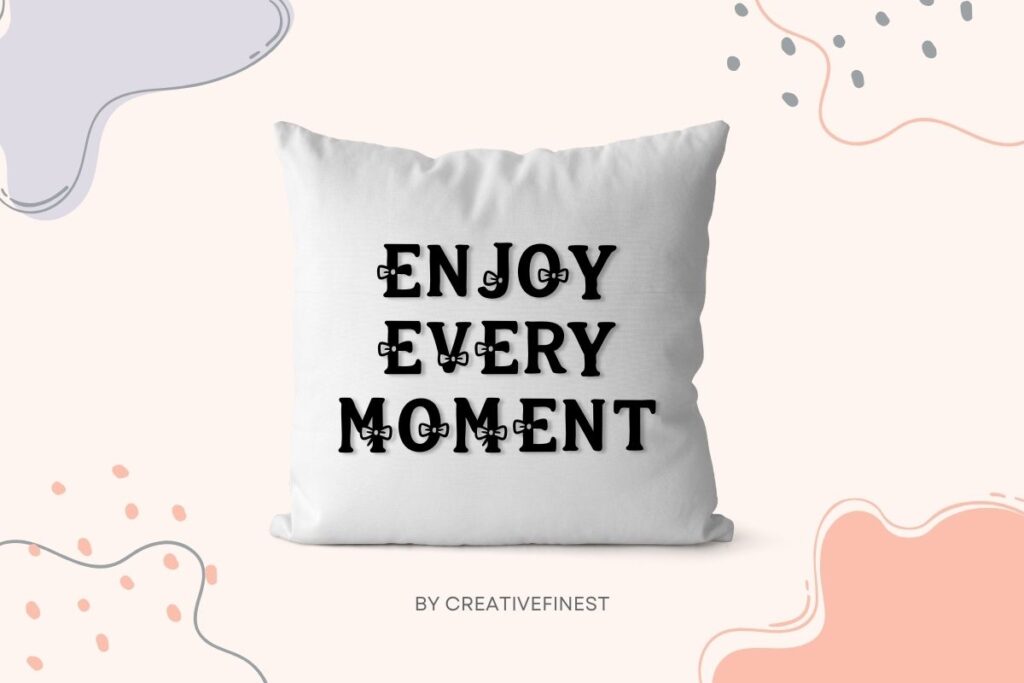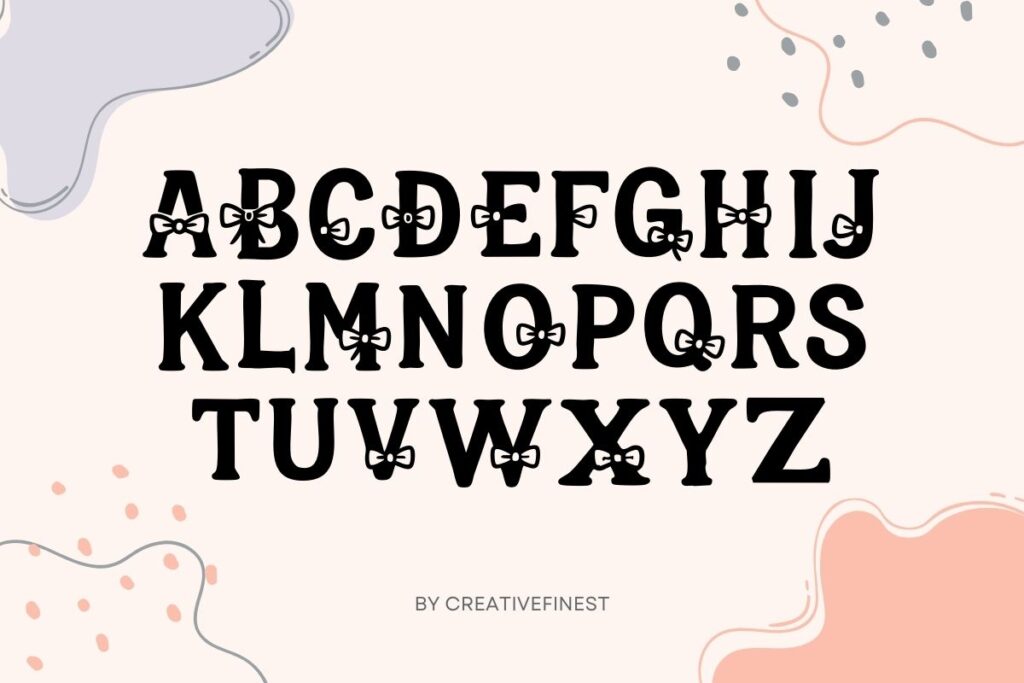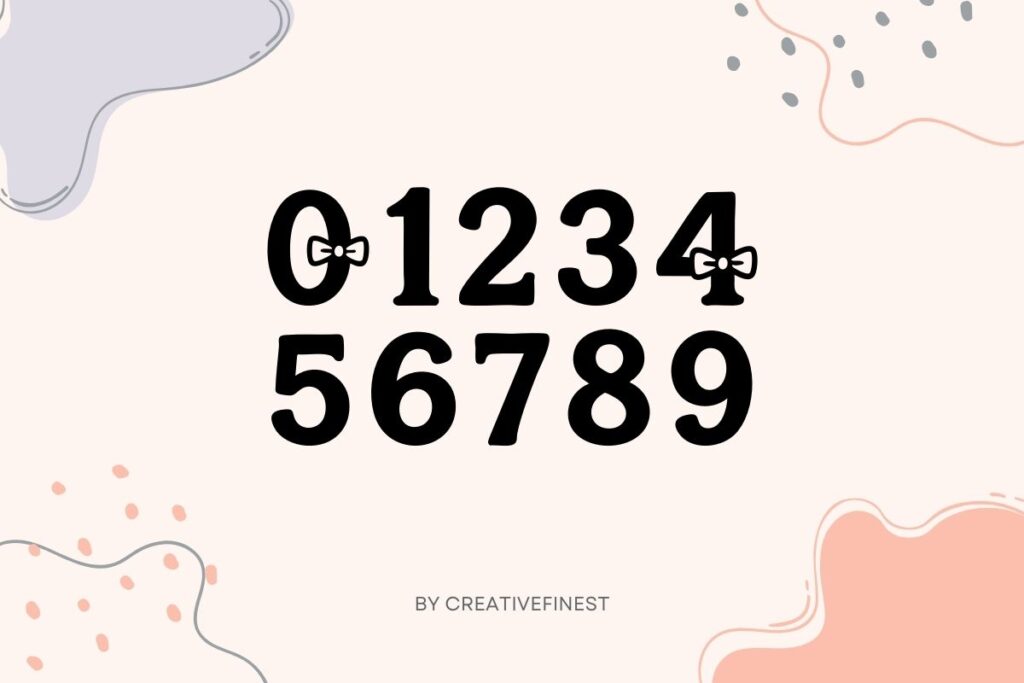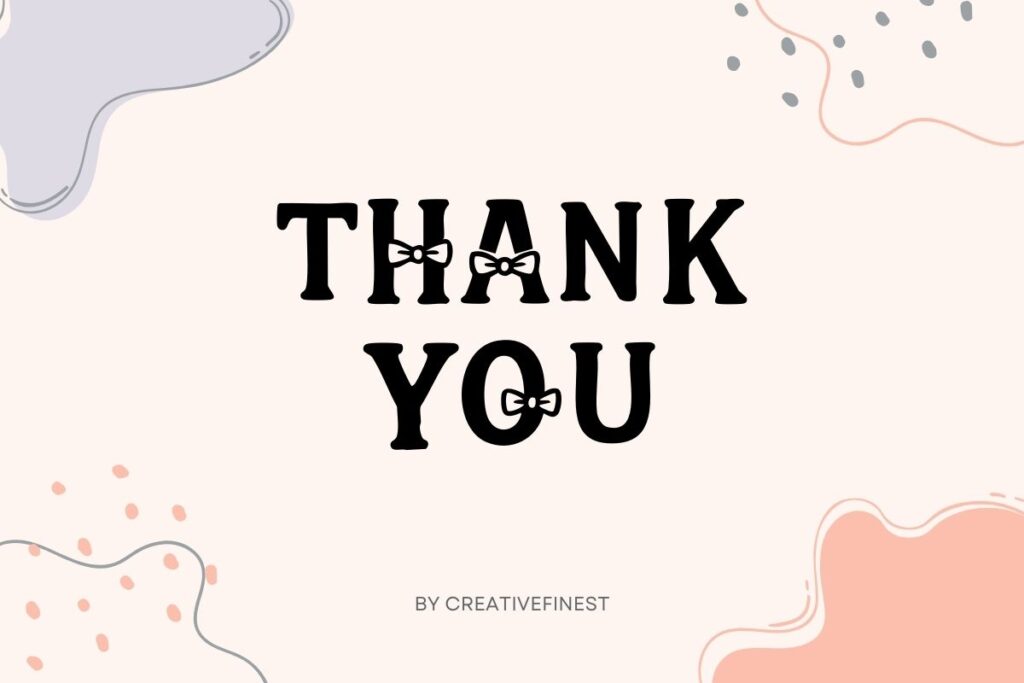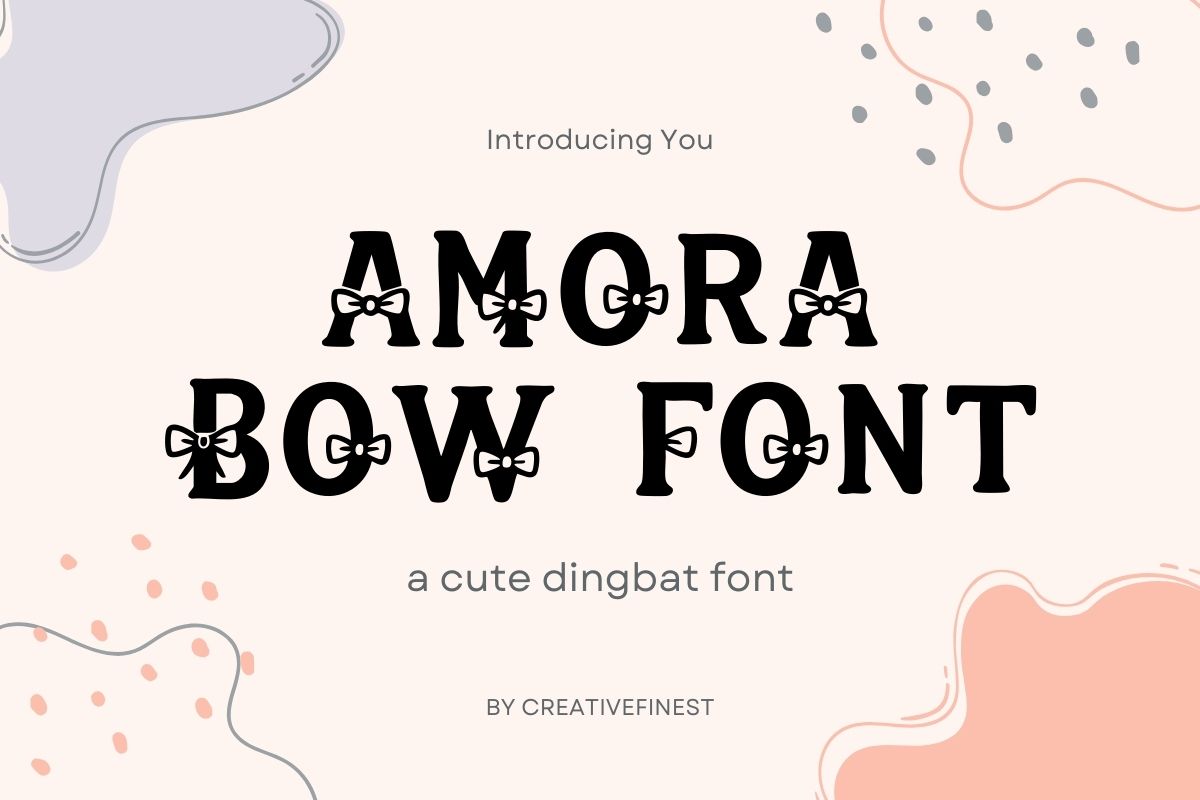
Amora Bow Font – Dingbat Typeface
Amora Bow Font is a cute dingbat font that gives your words a fun twist with little bow accents on every letter. It’s simple, playful, and perfect for creative projects, social media posts, and invitations that need a cheerful touch. If you love fonts that stand out and feel friendly.